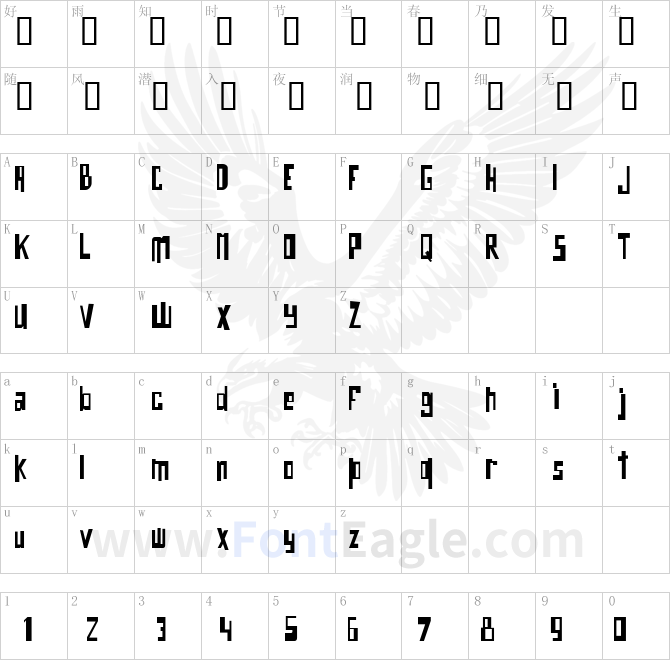
- Font name:o bicho
- Font Copyright:fonte desenvolvida a partir do poema o bicho alfabeto de Paulo Leminski, como trabalho do 4° bimestre da meteria de Tipografia. 20/11/2005, aluno responsavel Leandro Jose Vosniak